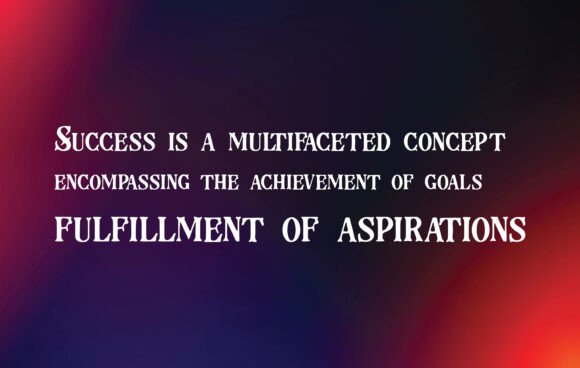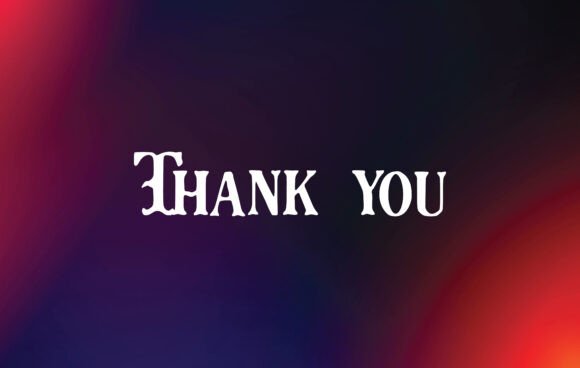
The Designer’s Delight: Unlocking the Potential of Edgar Font
I’ll never forget the time I was working on a branding project for a trendy coffee shop. My client wanted a logo that was both modern and elegant, but I was struggling to find the right font. That was until I stumbled upon Edgar Font. 💡
This lovely and beautiful font has the potential to take your creative ideas to the highest level. With its unique blend of sophistication and playfulness, Edgar Font is the perfect choice for creating eye-catching logos, branding, and quotes.
An Honest Review of Edgar Font
What I Love About Edgar Font ✨
• ✅ Elegant and sophisticated design
• ✅ Highly versatile and adaptable
• ✅ Beautiful OpenType features and glyphs
• ✅ Perfect for logos, branding, and quotes
• ⚠️ Limited availability of certain characters
• ⚠️ May require manual kerning for optimal results
The Backstory of Edgar Font
Edgar Font was designed by a talented type designer who wanted to create a font that was both elegant and playful. Inspired by classic serif fonts, Edgar Font features beautiful OpenType features and glyphs that make it perfect for creative projects.
Q: What is Edgar Font?
A: Edgar Font is a lovely and beautiful font designed for creative projects, including logos, branding, and quotes.